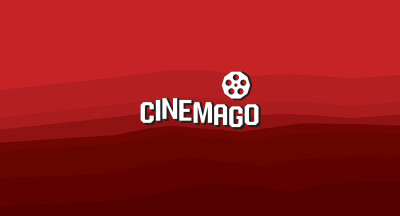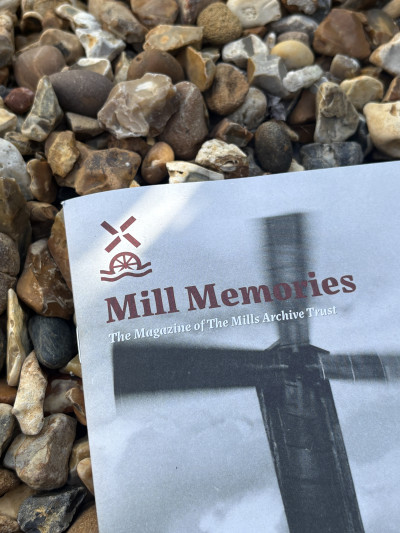
A chunky serif typeface with table tennis inspired strokes: fluid with sharp turns, impossible to stabilise until the rally ends.
#0 | Founding matrix: the blissful ignorance of a design dream
A wide, yet conventional family raised in the (ヨーロッパ) classrooms of Japanese language leaners.
A straight-cut typeface born in the outdoor hills of LA. Voicing the screams of busy cities with its simple, yet eye-catching charm.
The intersection of Latin & Japanese, West Europe & East Asia - that's where you'll find me.